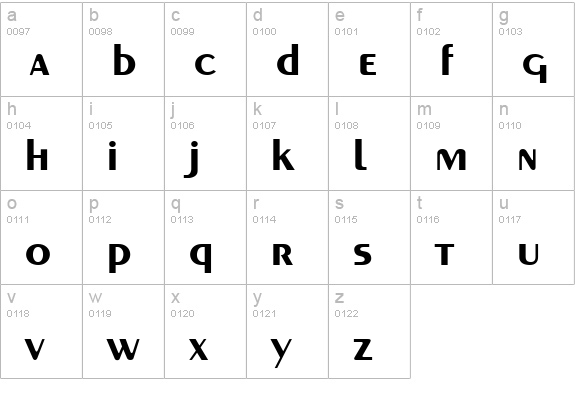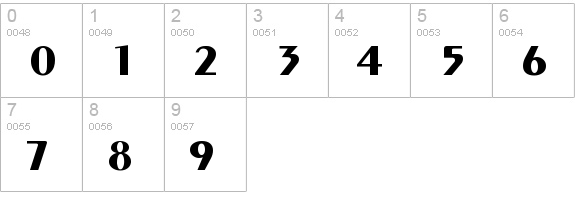
Greyhound-Bold is a strong, high-contrast variant in the Greyhound typeface family \xE2\x80\x94 well suited to headlines, attention-grabbing titles, and strong calls-to-action.
Introducing Greyhound-Bold, a sleek and modern font that exudes confidence and sophistication. With its bold lettering and clean lines, Greyhound-Bold is perfect for making a statement in your designs. Whether you're creating a striking headline or adding a touch of elegance to your branding, this versatile font will not disappoint. The best part? Greyhound-Bold is available for free download at FontsMarket.com. This means you can enhance your projects with this stunning font without breaking the bank. Don't miss out on the opportunity to elevate your designs with Greyhound-Bold - download it today and make a bold impression!